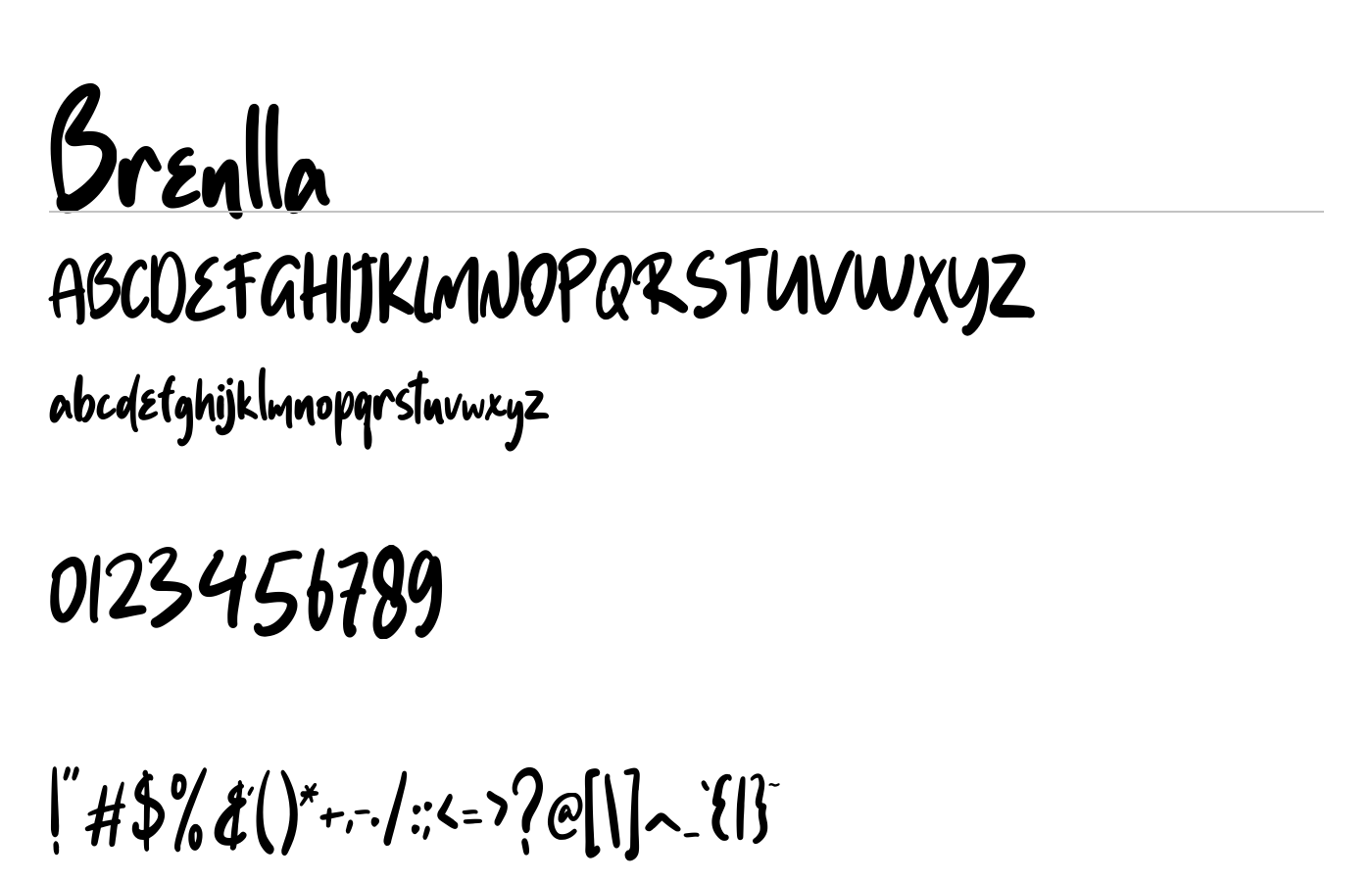
Brenlla is a lively, handwritten-style sans serif font with a playful and casual feel. Its bold strokes and dynamic letterforms give it an energetic personality, making it ideal for fun, informal designs such as greeting cards, lifestyle branding, and youth-oriented projects. This font works best in headlines and logos where a friendly, approachable vibe is desired.
Brenlla Font